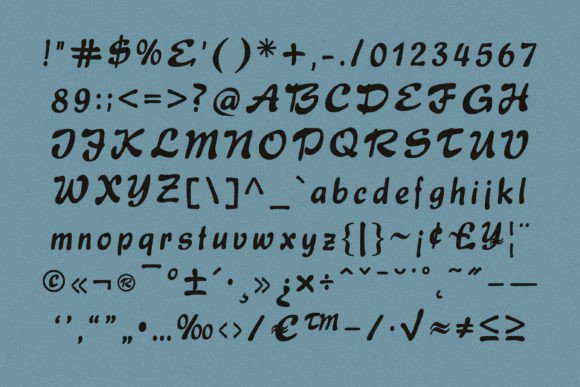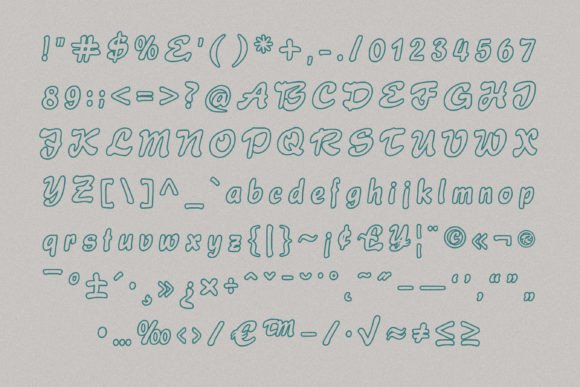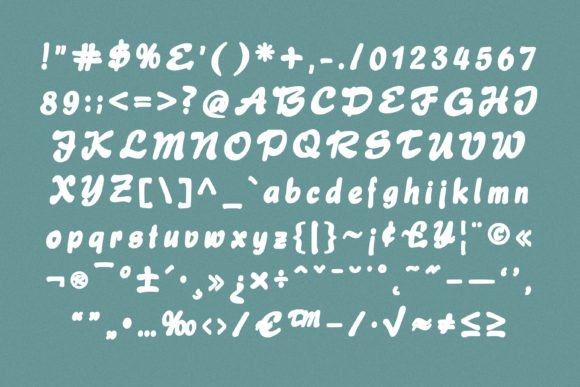
First Class Font
“First Class” is a playful and cool handwritten font that combines fun elements with neat craftsmanship and intricate detailing. This font is a valuable addition to your font library, offering versatility and the potential to enhance a wide range of creative projects, regardless of the topic.
The fun and cool nature of First Class make it suitable for a variety of design applications. Whether you’re working on social media graphics, branding materials, posters, or any other creative endeavor, this font injects a sense of playfulness that can resonate with diverse audiences.
The neat craftsmanship and high level of detail in First Class make it stand out. The carefully crafted characters contribute to the font’s overall aesthetic appeal, ensuring that it adds a touch of professionalism and quality to your designs.
Whatever the topic or theme of your project, First Class serves as a wonderful asset due to its adaptability. Its playful vibe makes it suitable for lighthearted or casual designs, while its neat detailing allows it to maintain a level of sophistication that can elevate the overall look and feel of your creations.
Incorporating First Class into your font library provides you with a creative tool that is both fun and highly detailed. This font can be the perfect choice when you want to infuse a sense of personality and uniqueness into your designs. Whether used for headlines, captions, or body text, First Class has the potential to enhance the visual appeal of any creation.
In summary, First Class is more than just a font; it’s a design asset that combines fun, coolness, and meticulous craftsmanship. It adds a layer of creativity to your projects and has the potential to enhance the overall quality and visual impact of your designs.